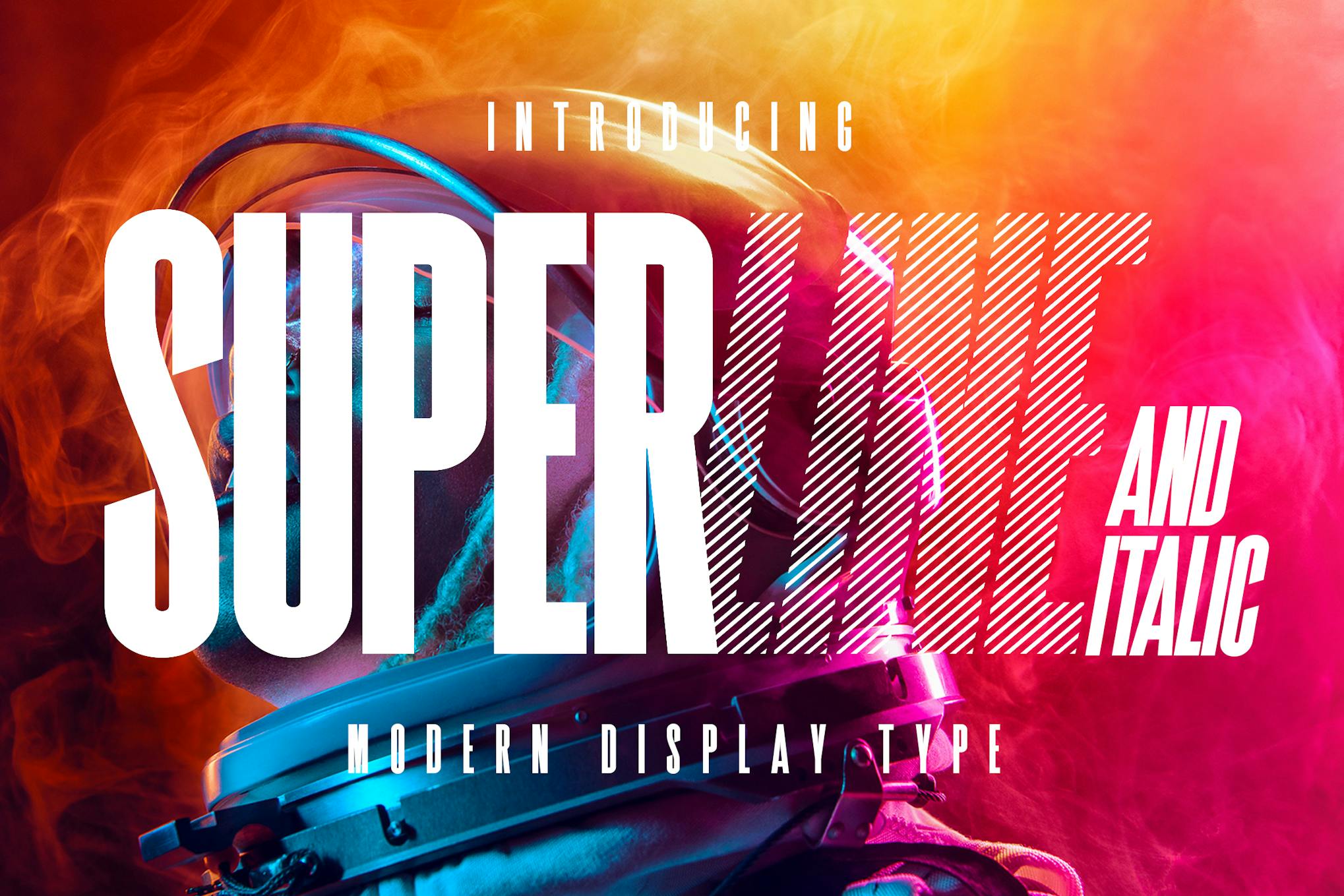
SuperLine Display Typeface Font
SuperLine Display Typeface Font powers superhero comic book titles, dynamic action movie credits, powerful sports team logos, electric energy company branding, high-voltage technology presentations, super-charged gaming interfaces, lightning-fast delivery service materials, super-strength fitness campaigns, electrical engineering publications, power grid infrastructure graphics, supersonic transportation branding, and electrifying marketing communications where linear power and super-charged energy create unstoppable dynamic experiences.
This electrifying typeface generates excitement through its perfect embodiment of linear power and super-charged energy that creates typography radiating unstoppable force and electrical intensity. SuperLine Display Typeface Font captures the essence of super-powered dynamics with its boldly linear letterforms that suggest high-voltage electricity, supersonic speed, and the clean power lines that deliver energy to modern civilization. The font's electrifying design approach incorporates elements that evoke electrical circuits, power transmission lines, and the streamlined efficiency that defines super-charged technological systems. Its distinctive character reflects the precision, power, and technological advancement that define authentic super-powered innovation and electrical excellence.
The SuperLine Display Typeface Font family encompasses multiple power variations including Regular, Light, Medium, Bold, and Electric versions, each maintaining the font's characteristic super-charged energy while offering different levels of electrical impact. The collection features linear styling, electric effects, and power-inspired textures that enhance its super-charged aesthetic. Additional elements include lightning symbols, power line ornaments, electrical decorative borders, and super-charged flourishes that reinforce the font's connection to electrical power and super-technology advancement.
Technology powerhouses and super-charged brands consistently select SuperLine Display Typeface Font Free Download for projects requiring typography that communicates electrical power and super-technology excellence. This remarkable typeface excels in applications where establishing high-energy credibility and conveying super-charged capability are essential for technology and energy sector success. The font's super-powered qualities make it particularly effective for electrical companies, high-tech organizations, and super-performance brands targeting audiences who appreciate electrical innovation and super-charged technological advancement.
Whether you're designing electrical power campaigns, creating super-technology presentations, developing high-energy brand identities, or crafting super-charged communications, SuperLine Display Typeface Font delivers unmatched electrical authenticity. Its ability to convey linear power, super-charged energy, and electrical excellence makes it invaluable for technology leaders seeking typography that genuinely reflects the power and precision of electrical innovation. The font's electrifying presence ensures your designs will communicate the super-charged capability and electrical mastery that define exceptional power communications and super-technology experiences.